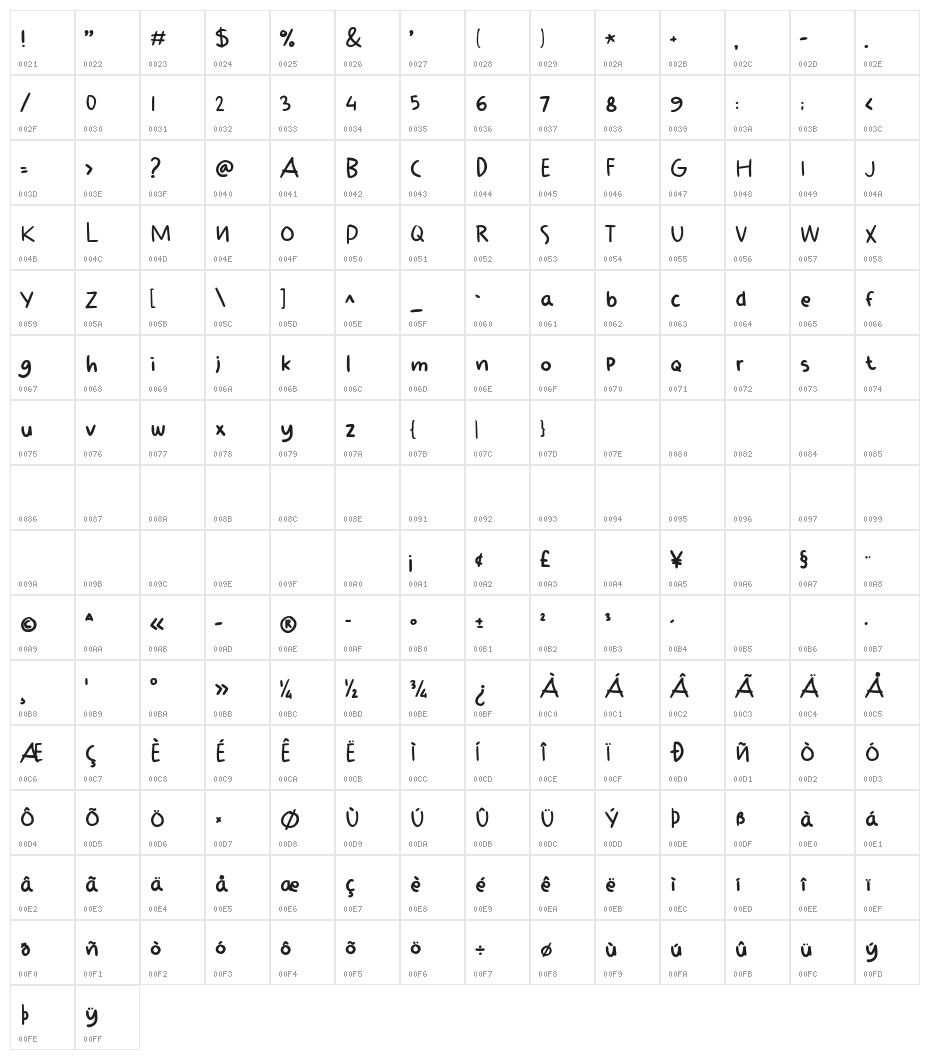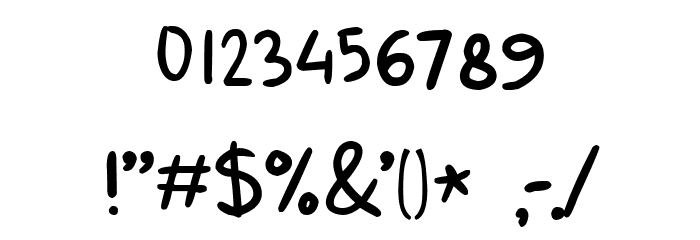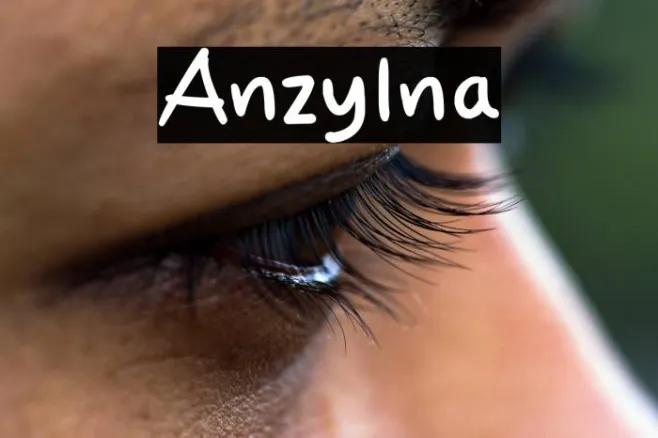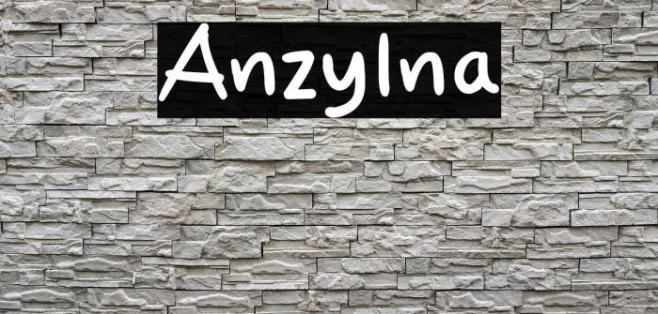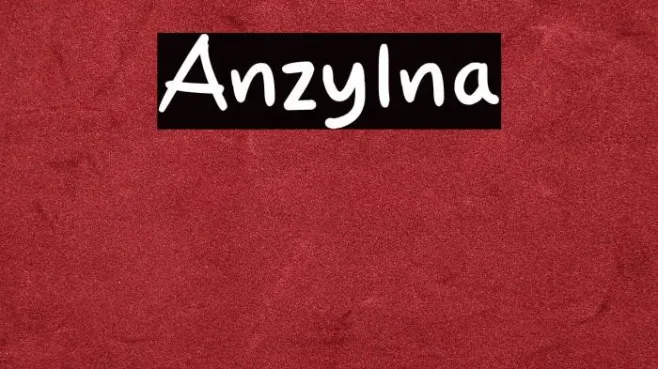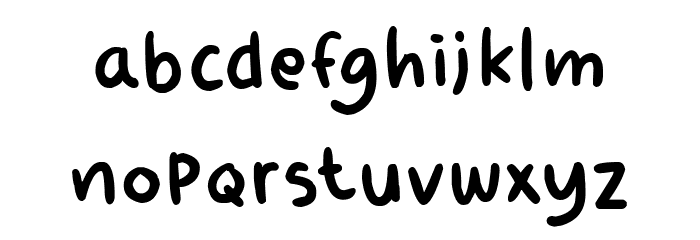
Anzylna Font
Anzylna Description
This font exudes a playful and casual handwritten style, characterized by its smooth, rounded edges and slightly irregular letterforms that mimic natural handwriting. The uppercase and lowercase letters maintain a consistent flow, with a slight tilt that adds to its informal charm. The numerals and special characters are crafted with the same whimsical touch, ensuring a cohesive look across all text. Its legibility is enhanced by the moderate spacing between characters, making it suitable for both short and extended text. The overall appearance is friendly and approachable, making it ideal for projects that require a personal touch.
| Use Case | Headlines, Informal text, Personal projects |
| Proposed Projects | Ideal for greeting cards, children's books, personal blogs, and informal branding. |